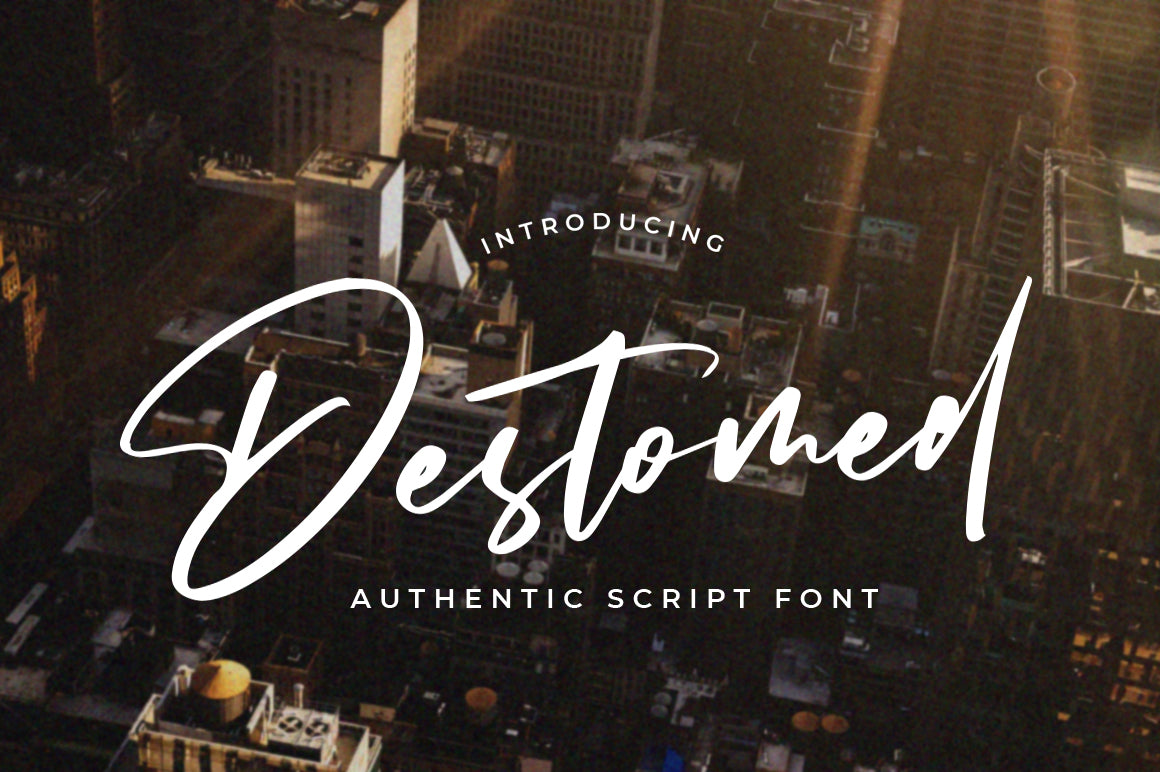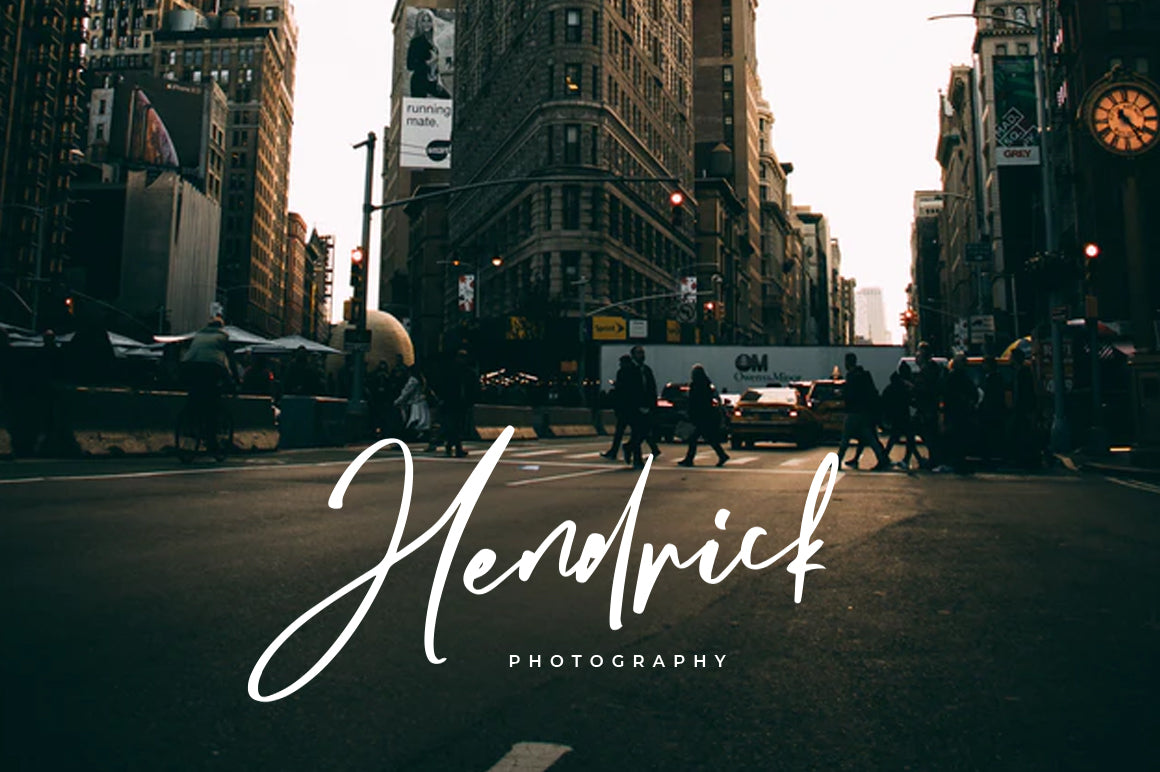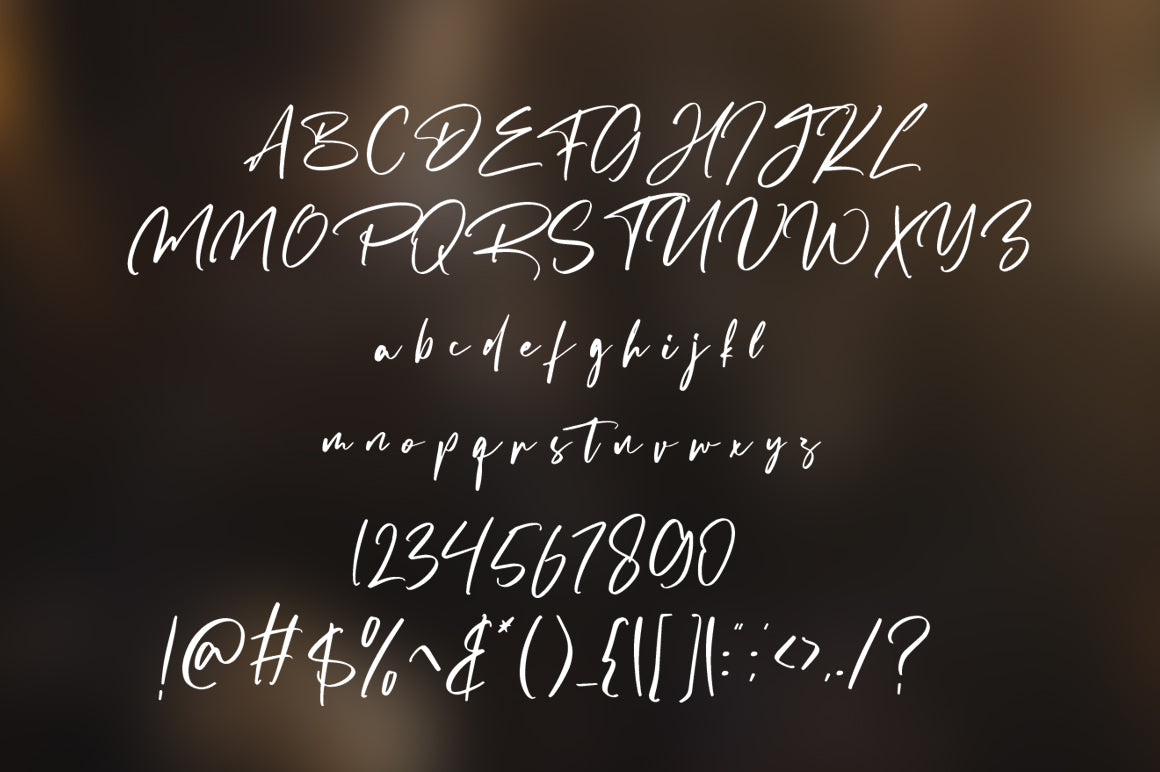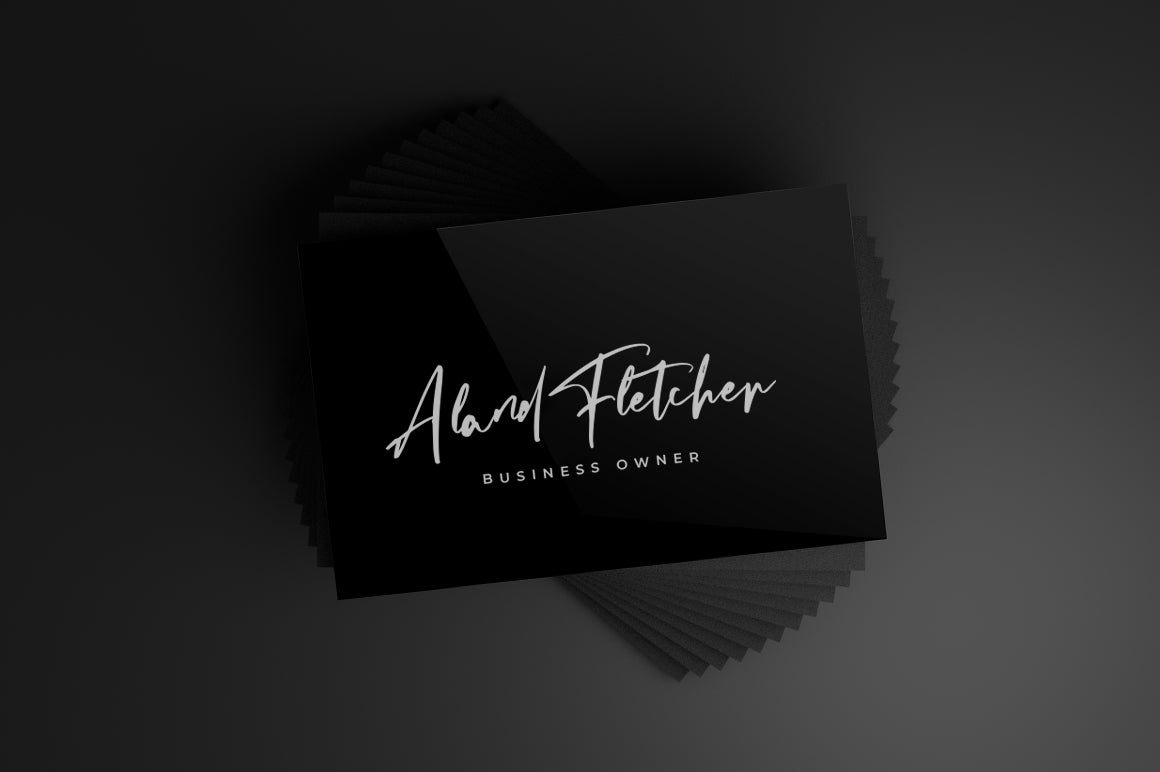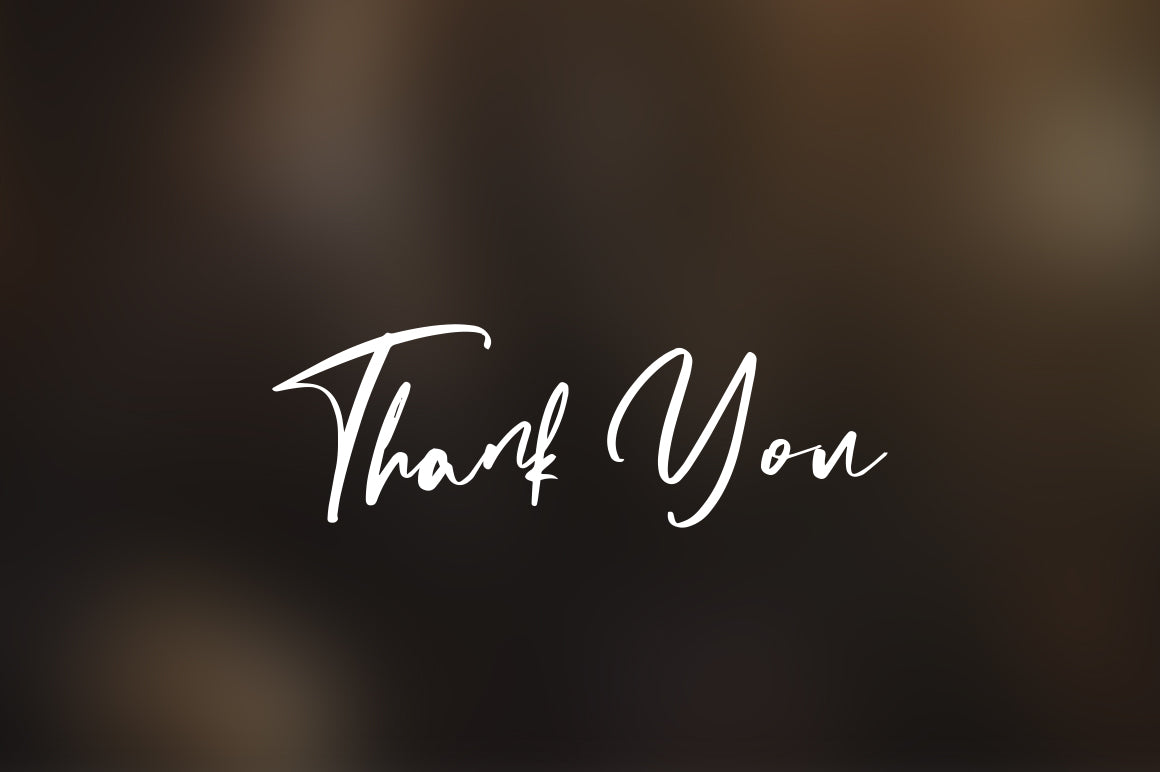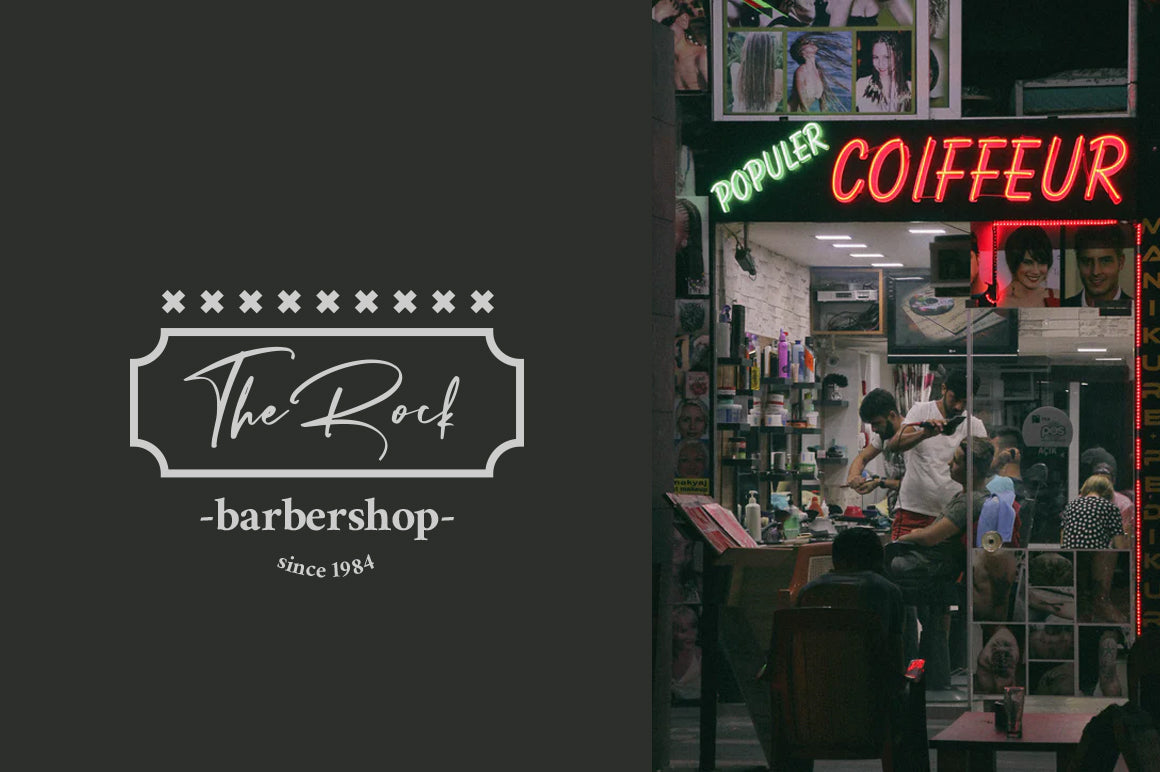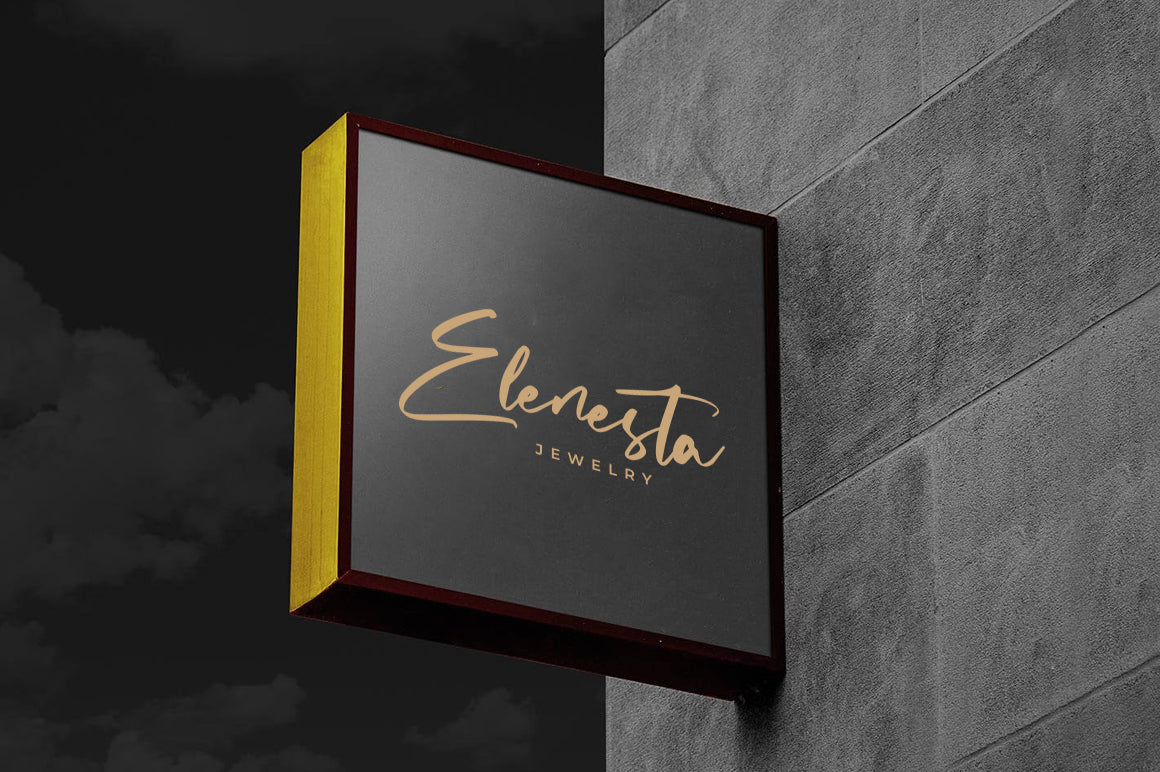
Destomed – Brush Font
About Destomed – Brush Font
Destomed is an elegant and delicate handwritten font. It looks stunning on wedding invitations, thank you cards, quotes, greeting cards, logos, business cards and every other design which needs a handwritten touch. You WIll Get : Zip file containing: either a OTF and TTF files Font Features : Web font file (.WOFF) Uppercase + Lowercase Letters Numbers + Punctuation Ligature Feature OpenType features Multilingual support Compatible with Adobe Illustrator, Adobe Photoshop, Adobe Indesign, Word, Corel draw, inkscape Silhouette Studio, Cricut Design Space, Scan N Cut, and other cutting and design programs Any questions? feel free to send us a message. Have a great day !